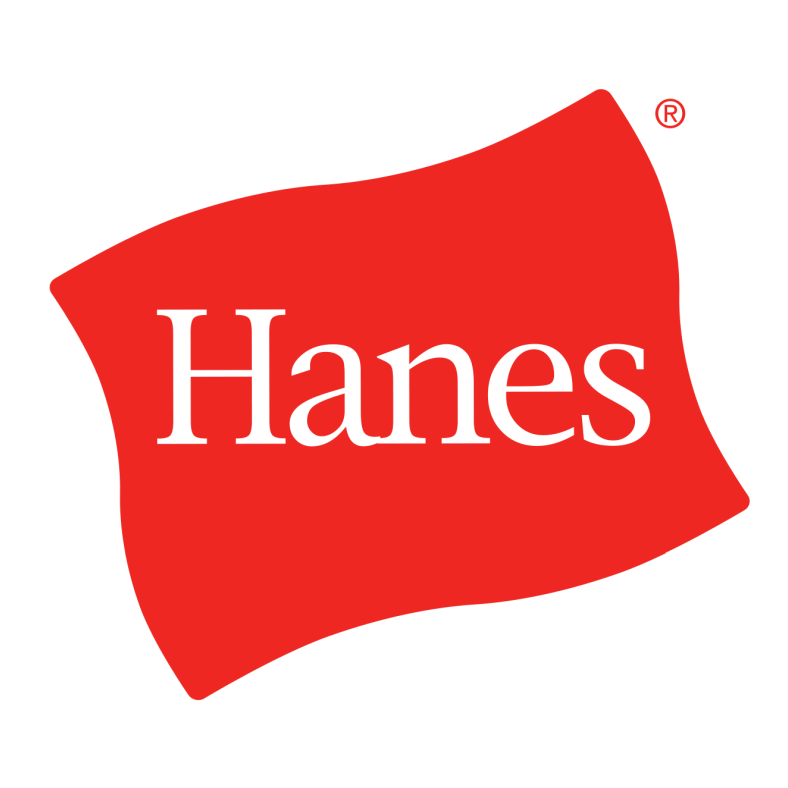
Hanes Logo Font
ApparelHannes is a global apparel company that designs, manufactures, and sells clothing, underwear, and hosiery products. The company was founded in 1901 and is headquartered in Winston-Salem, North Carolina. Hanesbrands has a portfolio of well-known brands including Hanes, Champion, Playtex, Bali, and Maidenform.
Charles Bigelow and Kris Holmes created New York, a transitional serif that is used in the brand's logo. It is a reworking of Susan Kare's bitmap serif of the same name designed for Macintosh computers in 1983.